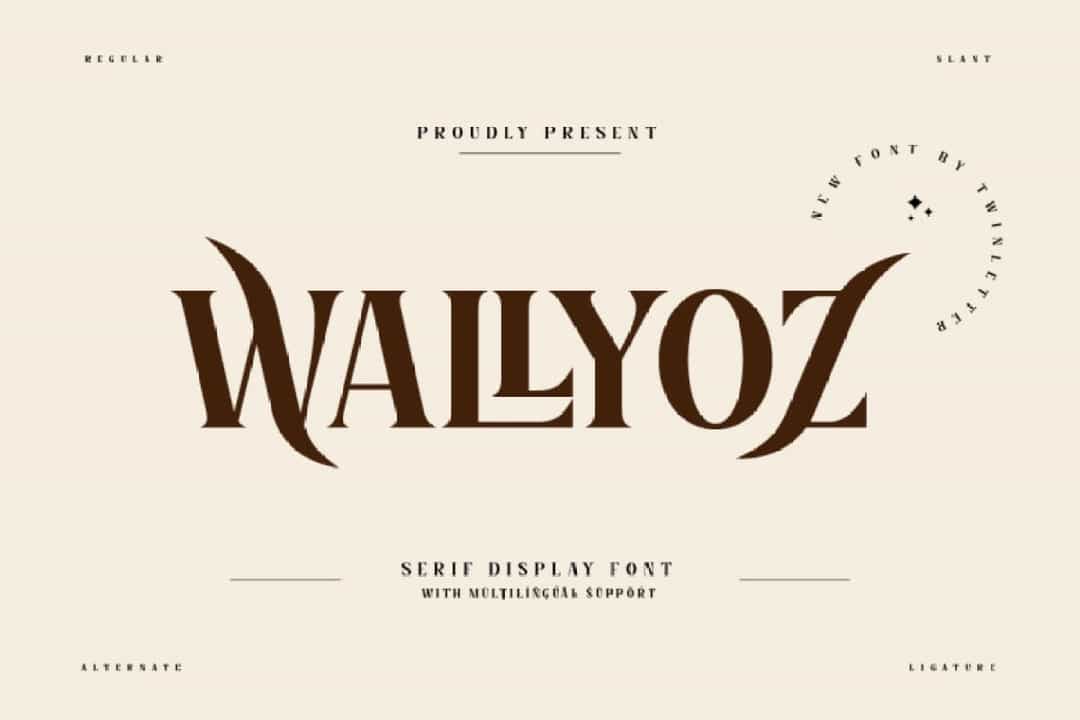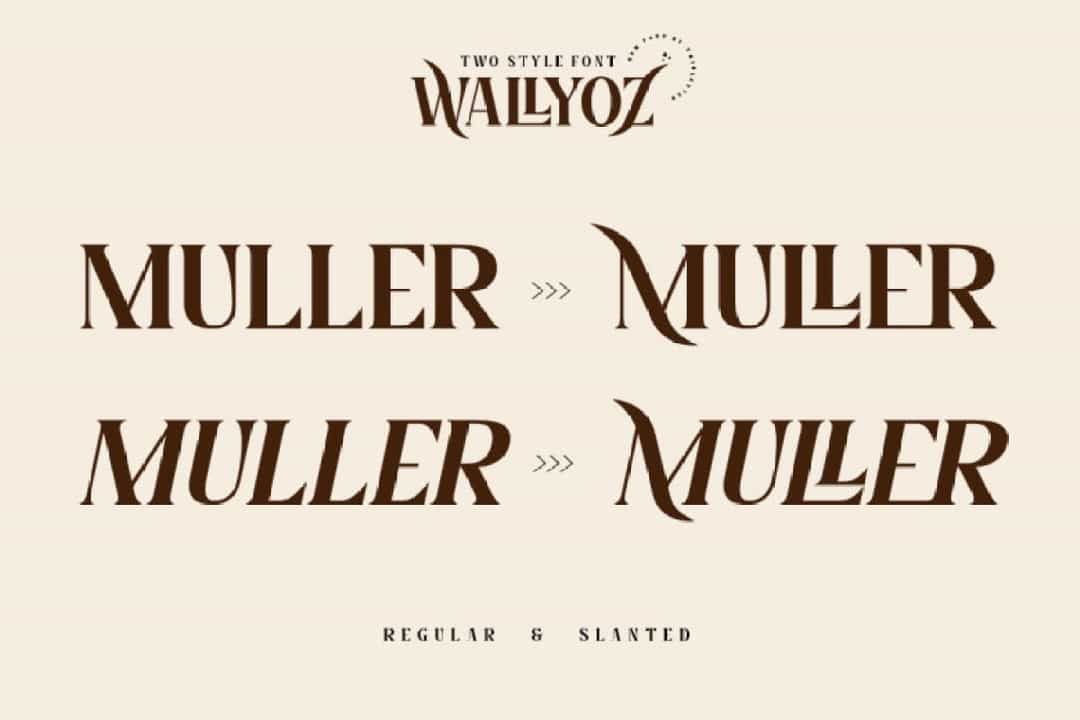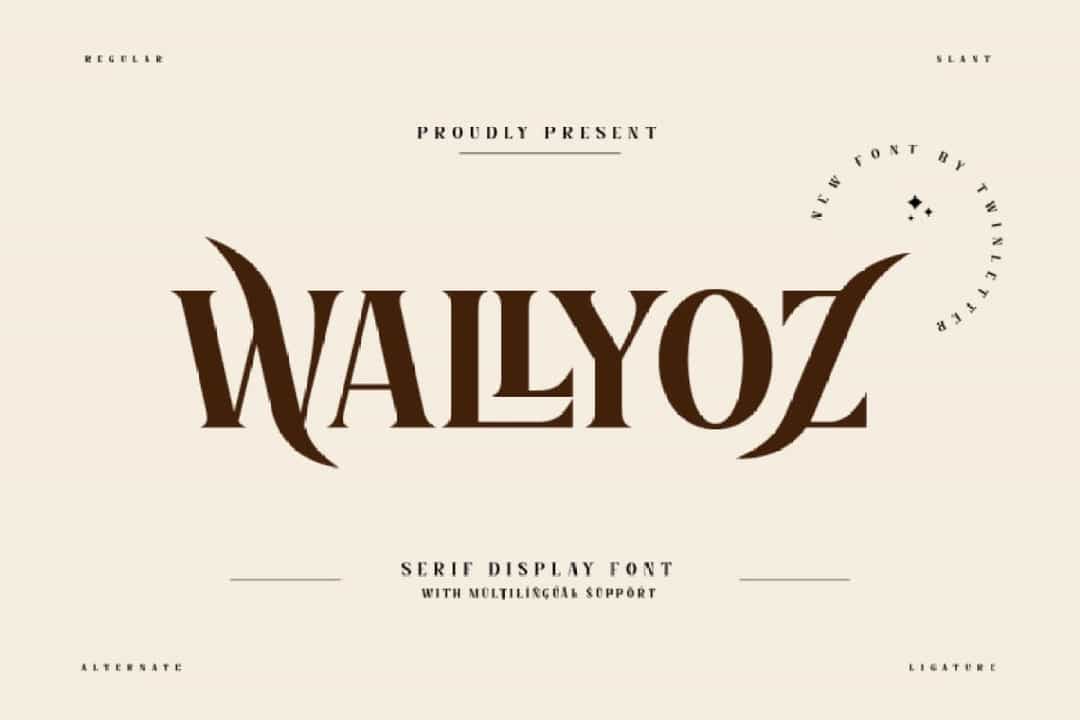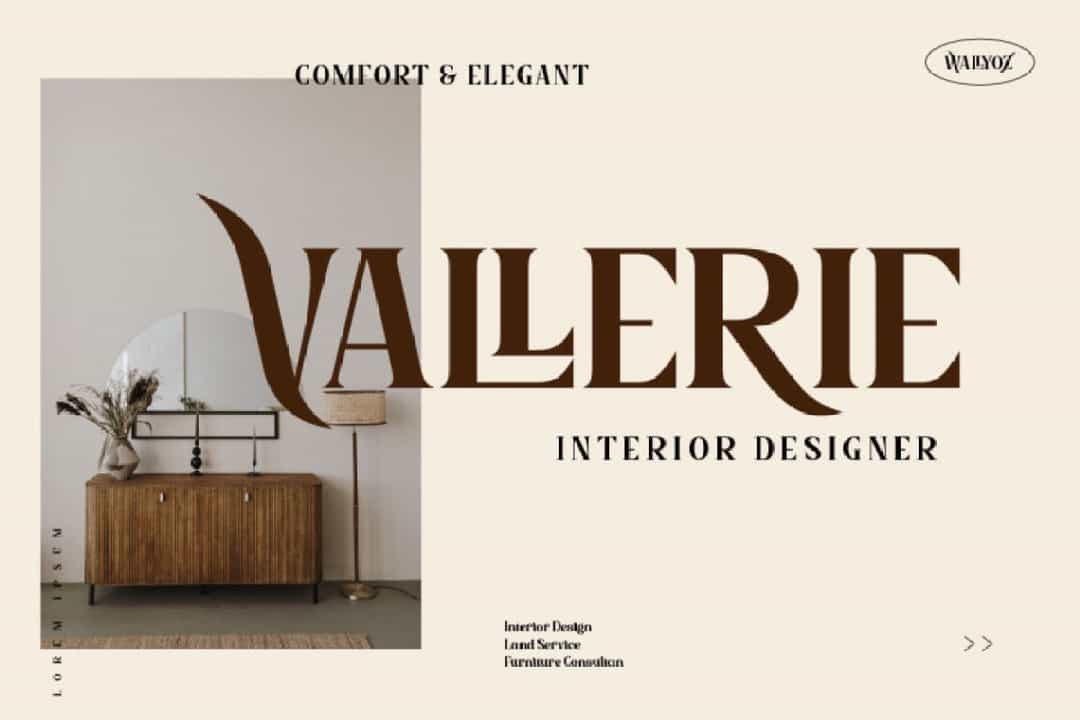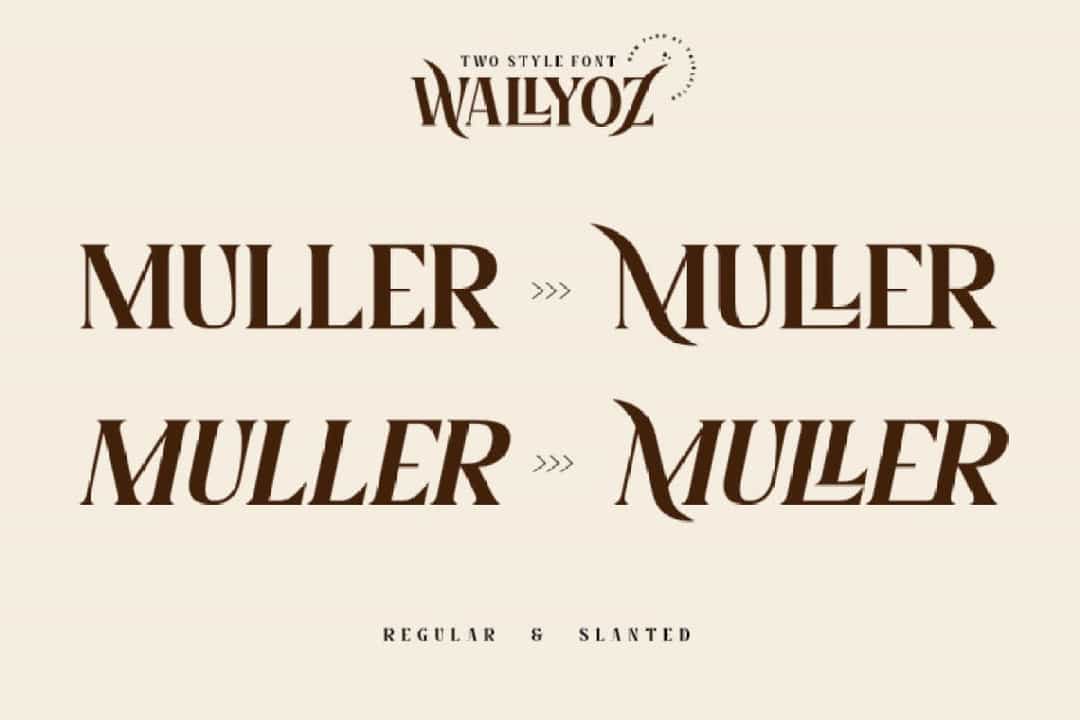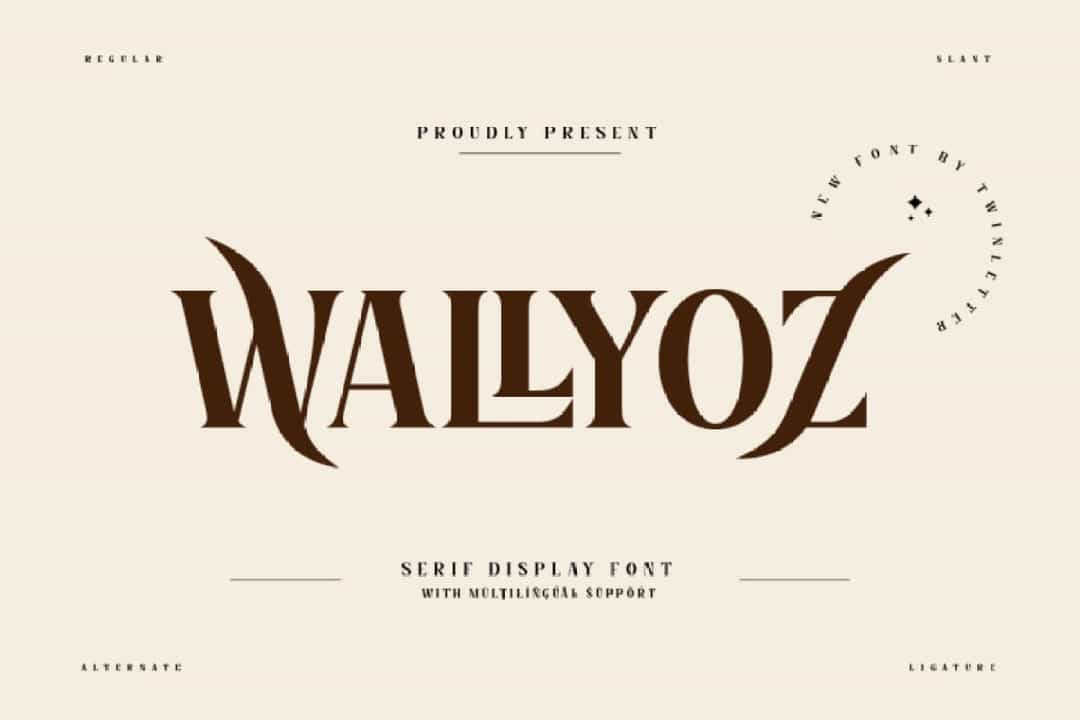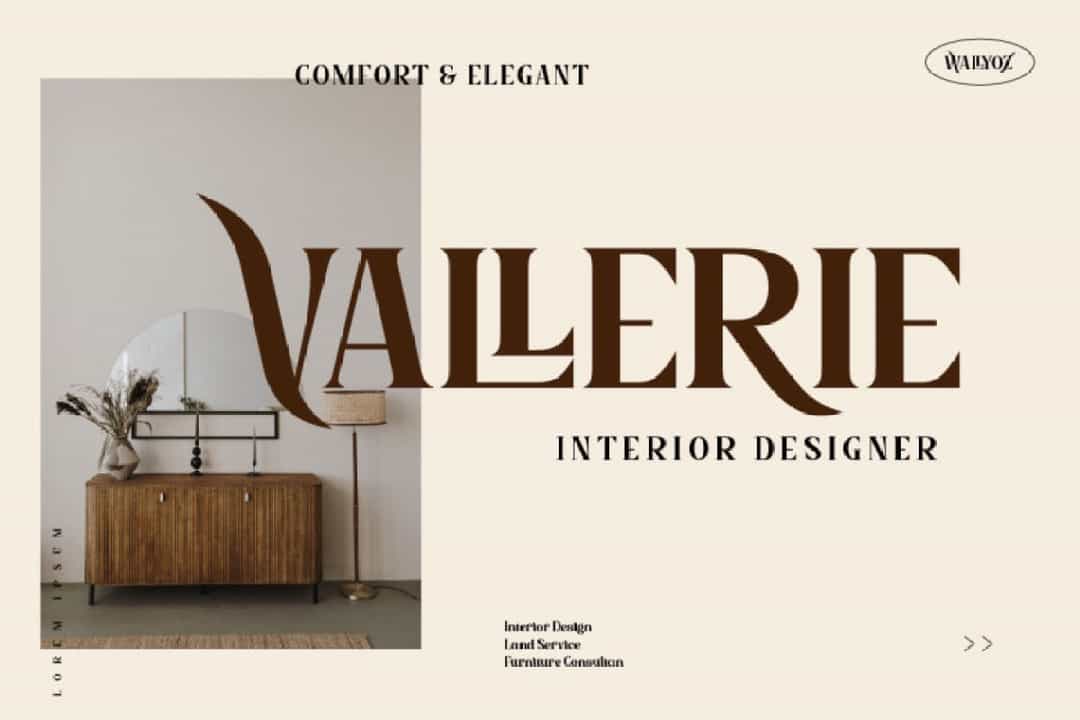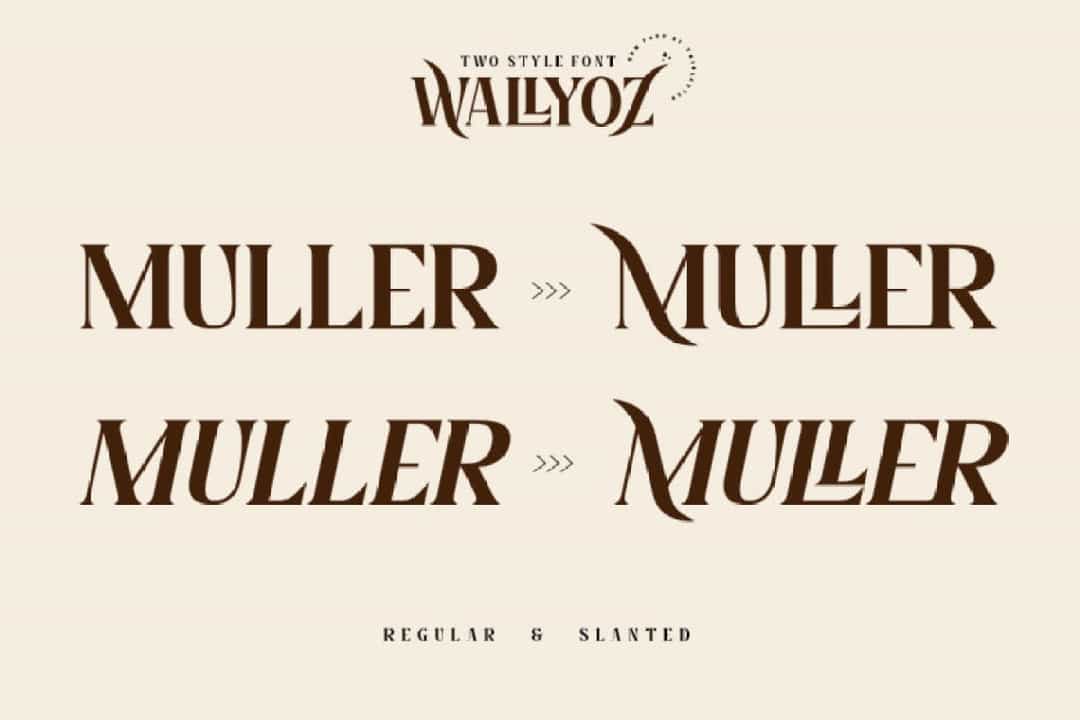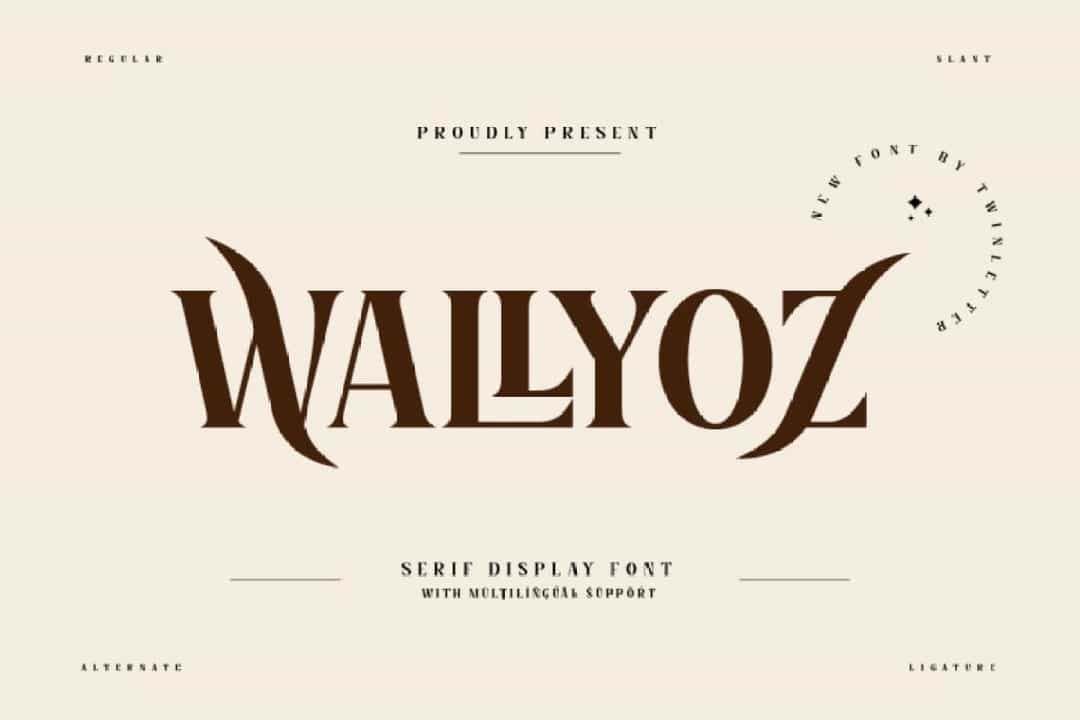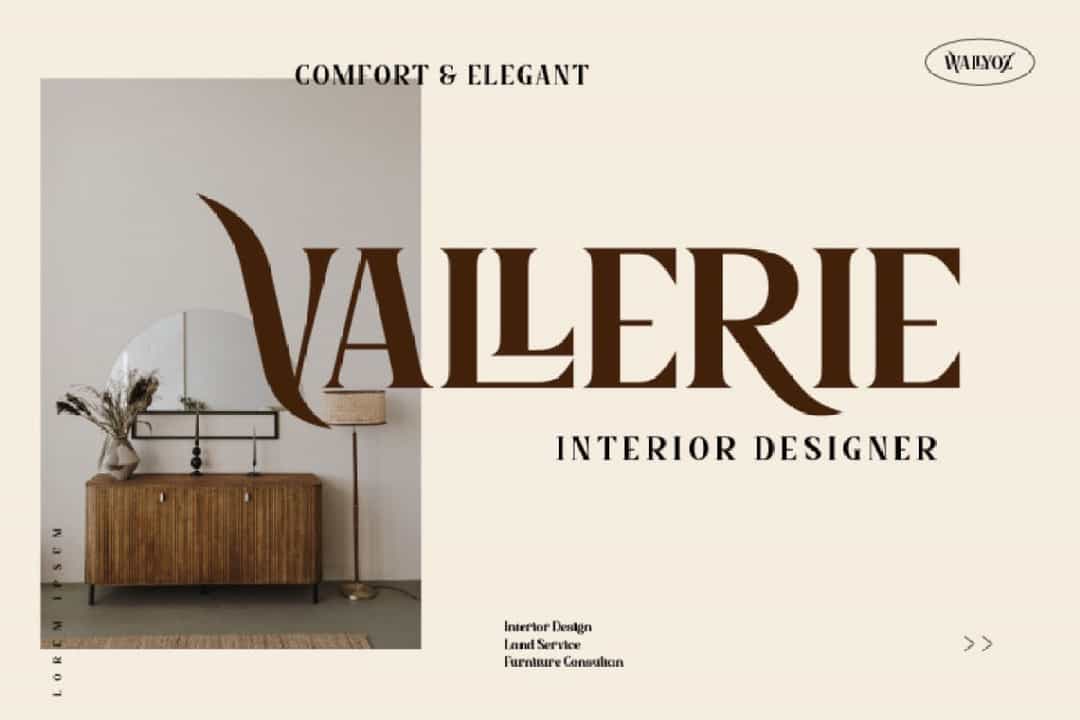
Wallyoz is a serif display font which seamlessly merges traditional styles with contemporary influences. Specifically designed to provide sophisticated yet professional results in design work such as titles, headings and logos; every letter adds elegance and class.